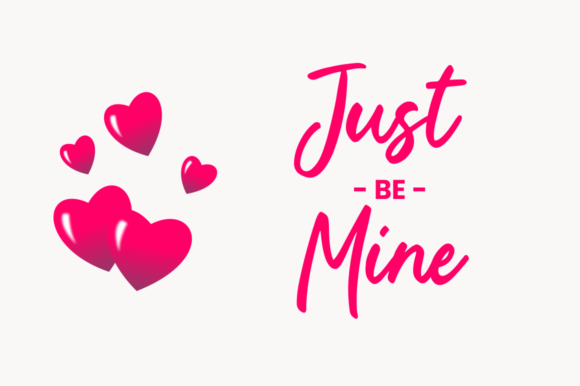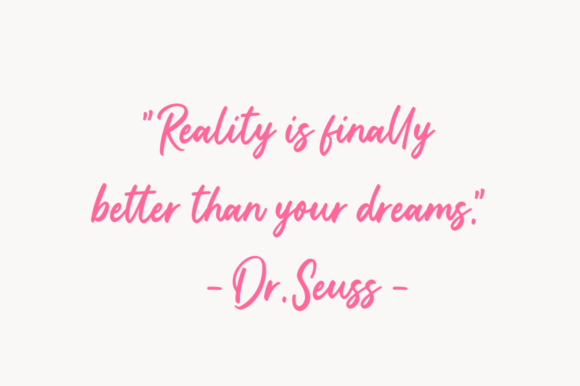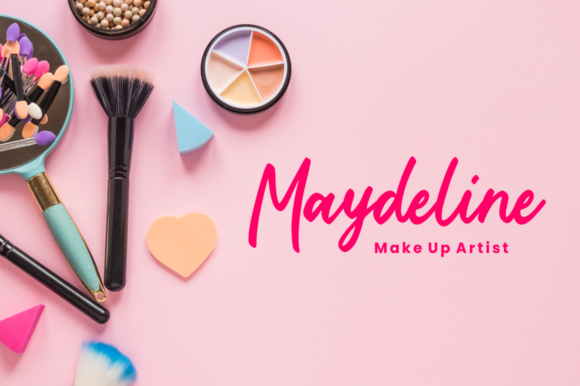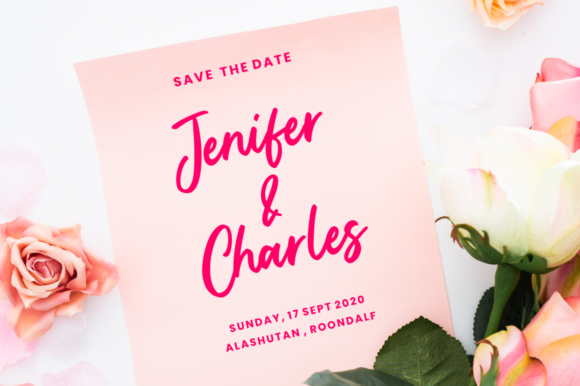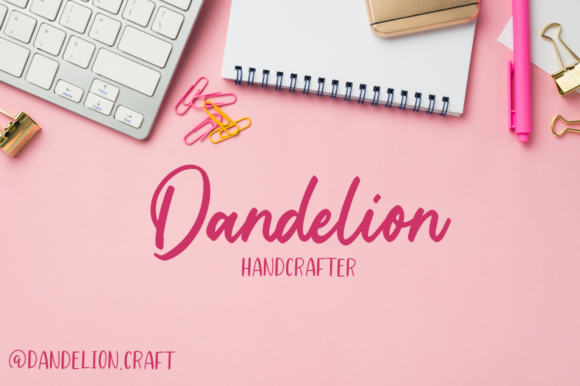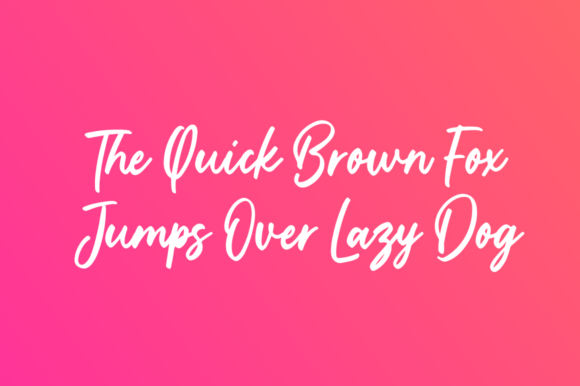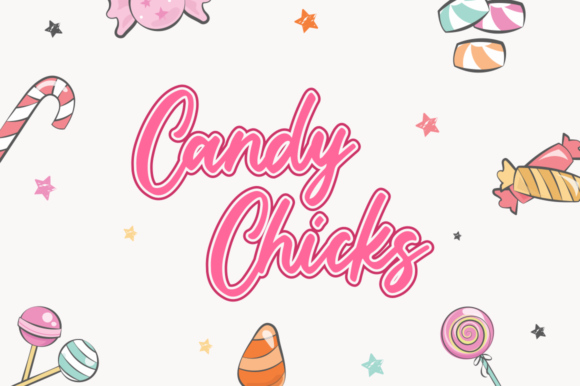
Candy Chicks Font: The Sweetest Addition to Your Design Projects
Are you looking for a font that can add a touch of playfulness and romance to your design projects? Look no further than Candy Chicks Font! This versatile script font is perfect for a wide range of applications, from Valentine’s Day projects to body text, and is guaranteed to bring a smile to your audience’s faces.
The Charm of Candy Chicks Font
Candy Chicks Font is a playful and cute script font that exudes authenticity. Its unique and charming letterforms are designed to evoke the feeling of childhood nostalgia and whimsy. The font’s playful nature makes it perfect for designs that require a touch of fun and personality, such as:
- Valentine’s Day cards and gifts
- Children’s party decorations and invitations
One of the best things about Candy Chicks Font is its versatility. It can be used for a wide range of design projects, from headlines and titles to body text and captions. The font’s clear and readable design makes it perfect for use in:
- Blog posts and articles
- E-books and digital publications
- Product descriptions and packaging
- Signs and posters
Authentic and Unique
Candy Chicks Font is not just a font, it’s an experience. Its unique and authentic design sets it apart from other script fonts on the market. The font’s creator has carefully crafted each letterform to ensure that it is both playful and elegant, making it perfect for designs that require a touch of sophistication.
Why Choose Candy Chicks Font?
There are many reasons why designers and crafters love Candy Chicks Font. Here are just a few:
- Playful and fun: Candy Chicks Font is the perfect way to add a touch of playfulness and whimsy to your designs.
- Versatile: The font can be used for a wide range of design projects, from headlines to body text.
- Authentic and unique: The font’s unique design sets it apart from other script fonts on the market.
- Elegant and sophisticated: Despite its playful nature, Candy Chicks Font is also elegant and sophisticated, making it perfect for designs that require a touch of refinement.
Tips for Using Candy Chicks Font
Here are a few tips for getting the most out of Candy Chicks Font:
- Use it for headlines and titles: Candy Chicks Font is perfect for use in headlines and titles, where its playful and whimsical nature can really shine.
- Pair it with other fonts: Candy Chicks Font pairs well with a wide range of other fonts, including sans-serif fonts and serif fonts.
- Experiment with colors and textures: The font’s playful nature makes it perfect for use with bright colors and fun textures.
Candy Chicks Font is a versatile and charming script font that is perfect for designers and crafters looking to add a touch of playfulness and romance to their design projects. Its unique and authentic design makes it a standout in the world of fonts, and its versatility ensures that it can be used for a wide range of applications. Whether you’re working on a Valentine’s Day project or just want to add a touch of whimsy to your designs, Candy Chicks Font is the perfect choice.